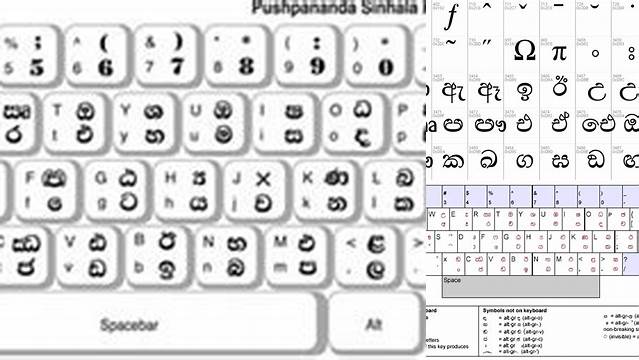
Iskoola Pota Sinhala Font Keyboard: Free Download
1. What is Iskoola Pota Sinhala Font?
Iskoola Pota is a widely used Sinhala font known for its readability and traditional aesthetic. It's designed to mimic the handwriting style commonly taught in Sri Lankan schools, hence the name "Iskoola Pota," which translates to "school book." This font is a favorite for educational materials, official documents, and creative projects that require an authentic Sinhala script. The unique curves and distinct letterforms make it both charming and practical. Its classic design lends a touch of nostalgia, evoking memories of traditional Sinhala education. For designers, using Iskoola Pota adds a layer of cultural richness and authenticity to their work, making it a popular choice for branding and artistic endeavors. The font's versatility ensures it remains a staple in both print and digital media, preserving the beauty of the Sinhala script for generations to come. Because of its clear and legible design, Iskoola Pota is also beneficial for those who are learning to read and write in Sinhala. By using this font, learners can easily recognize and understand the different characters, which can make the learning process more enjoyable and effective.
2. Why Use an Iskoola Pota Sinhala Font Keyboard?
Using an Iskoola Pota Sinhala font keyboard allows you to type directly in Sinhala script, preserving the authenticity of your text. Without a dedicated keyboard, you might resort to transliteration or other workarounds, which can be time-consuming and less accurate. A proper keyboard ensures that your Sinhala text looks professional and is easily readable. Moreover, it enhances your ability to communicate effectively in Sinhala across various digital platforms. The availability of a Sinhala font keyboard is especially useful for creating content in Sinhala, such as documents, articles, and social media posts. It allows users to express themselves more fluently and accurately in their native language. Furthermore, by using a Sinhala font keyboard, you contribute to the preservation and promotion of the Sinhala language in the digital world. It ensures that the language remains vibrant and accessible to future generations. For those involved in education, journalism, or creative writing, having a reliable Sinhala font keyboard is an indispensable tool. It facilitates the creation of high-quality content that resonates with the Sinhala-speaking community.